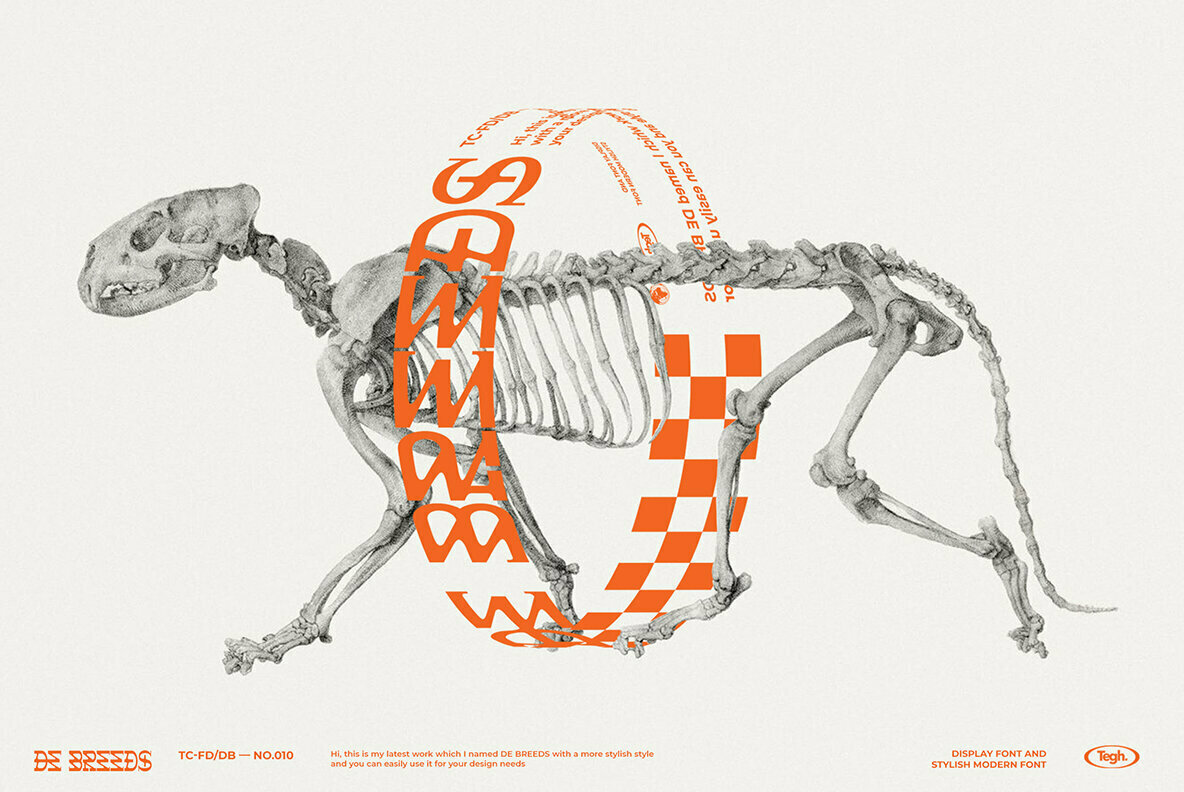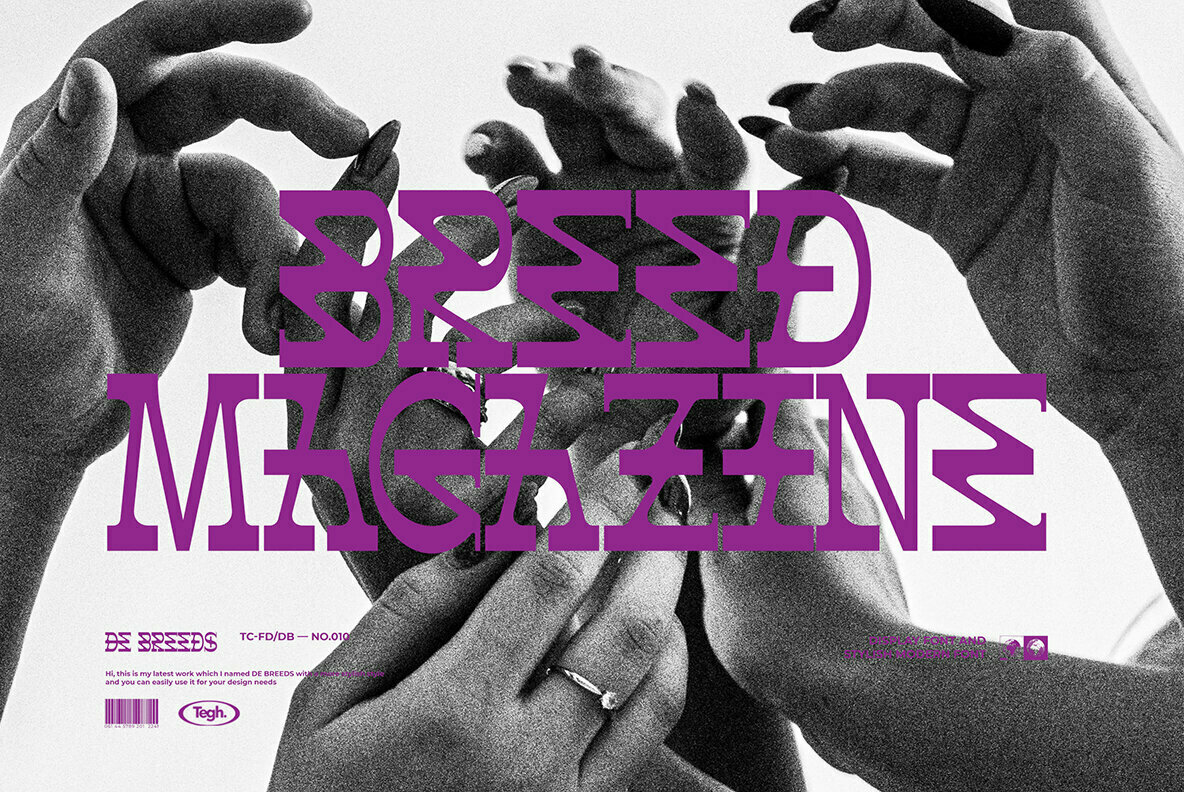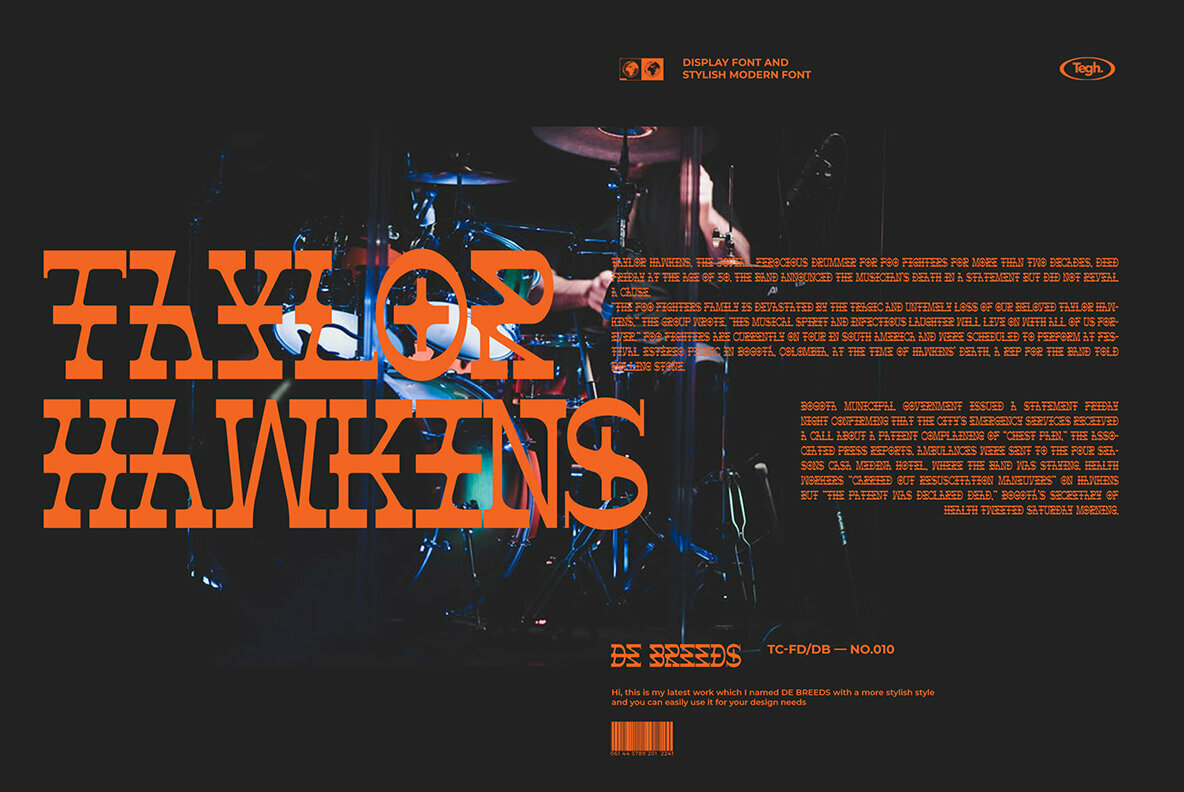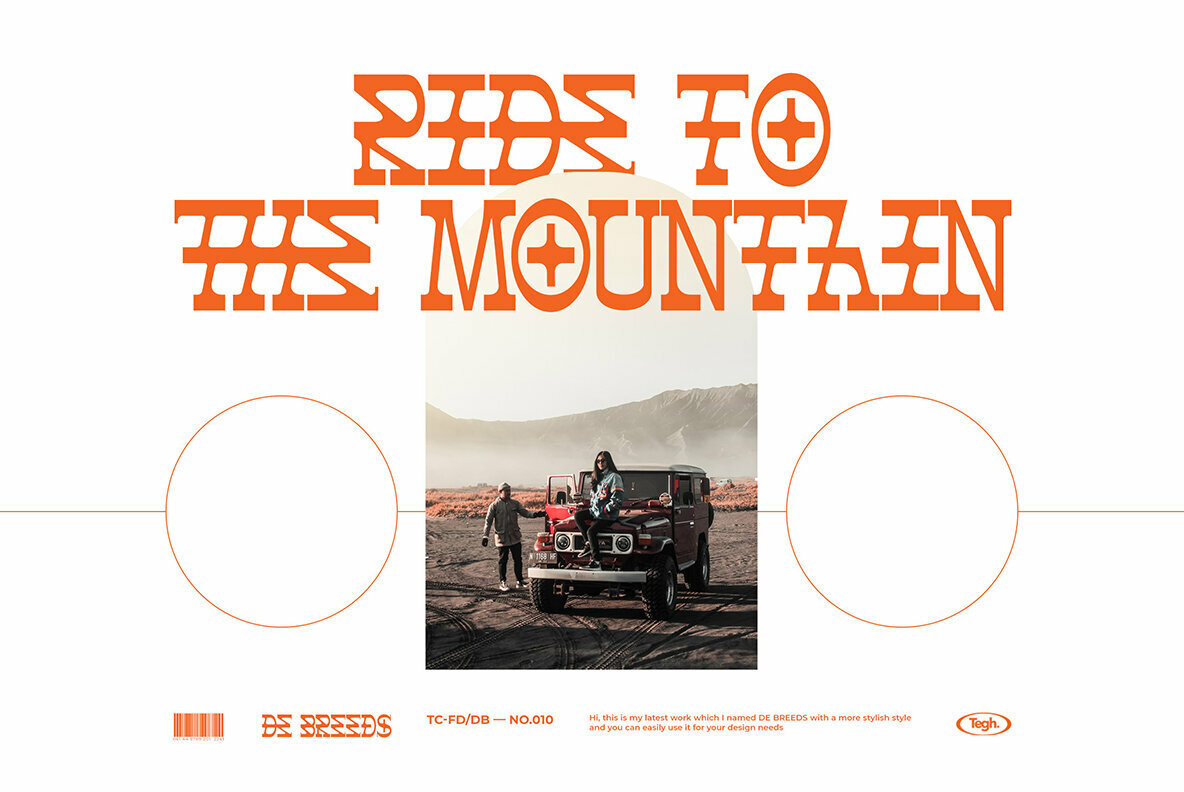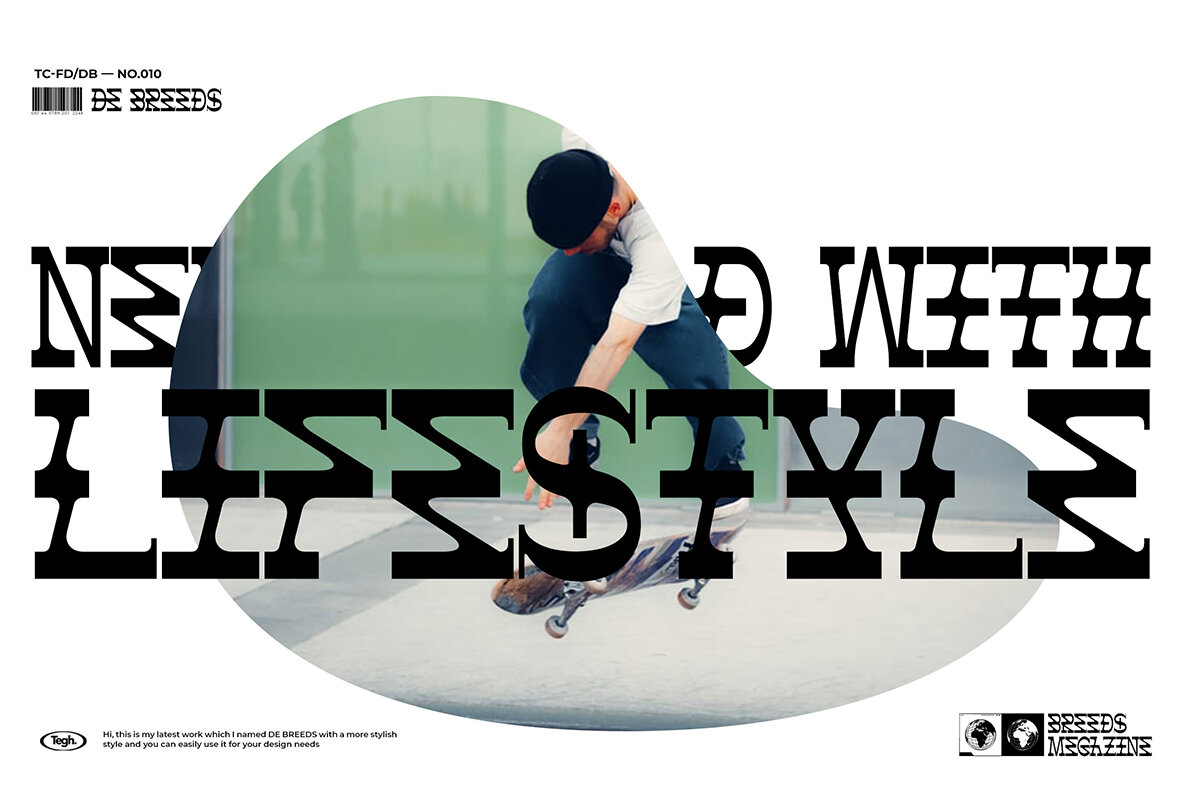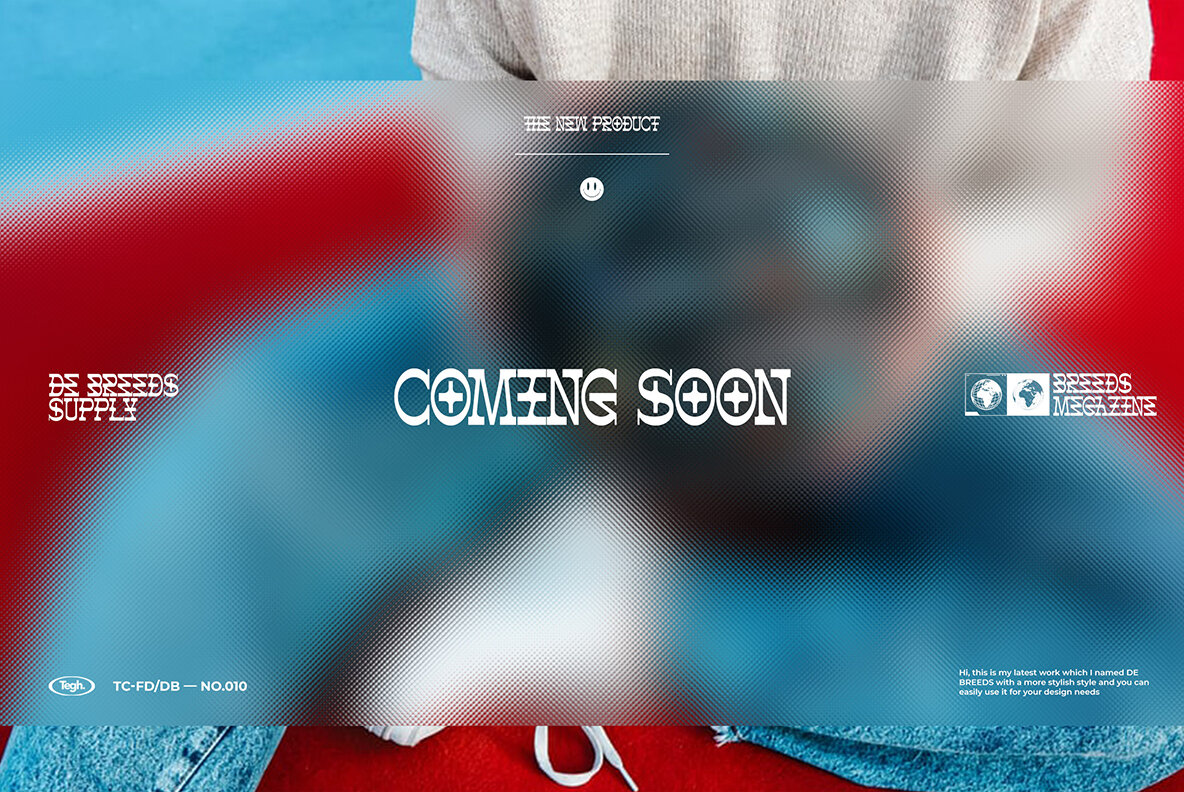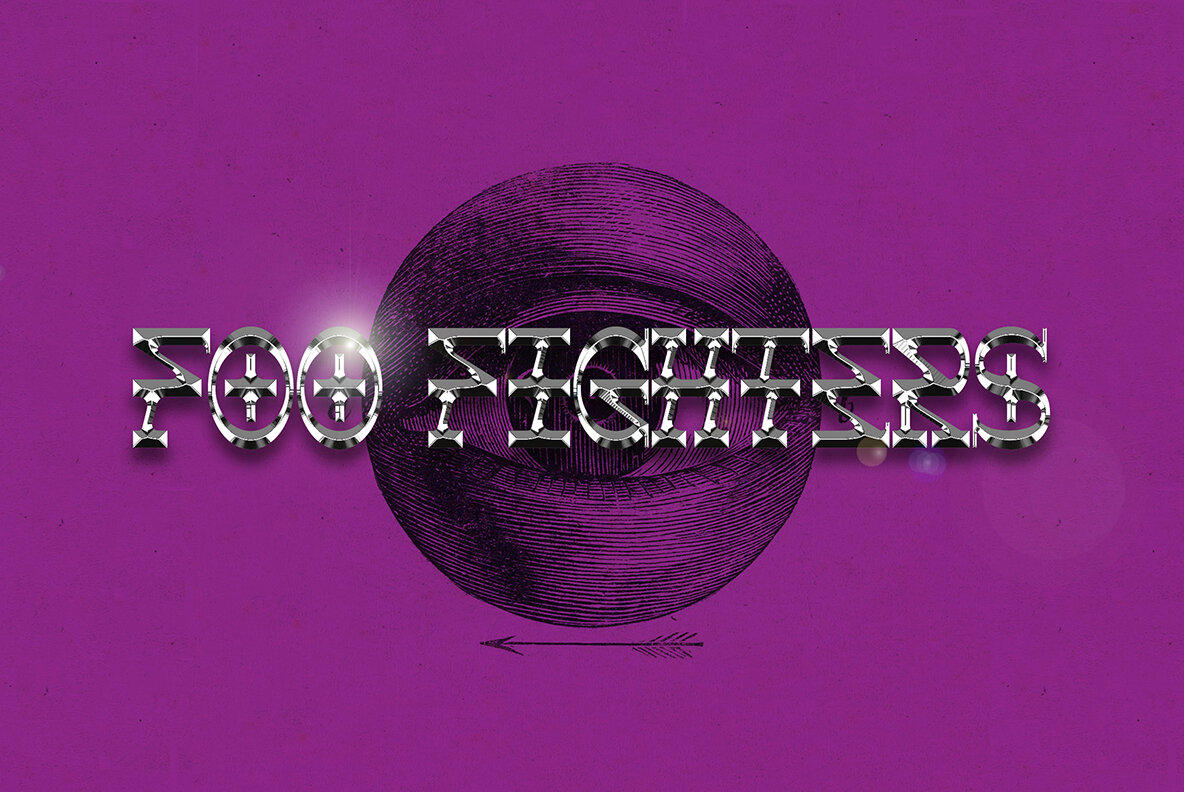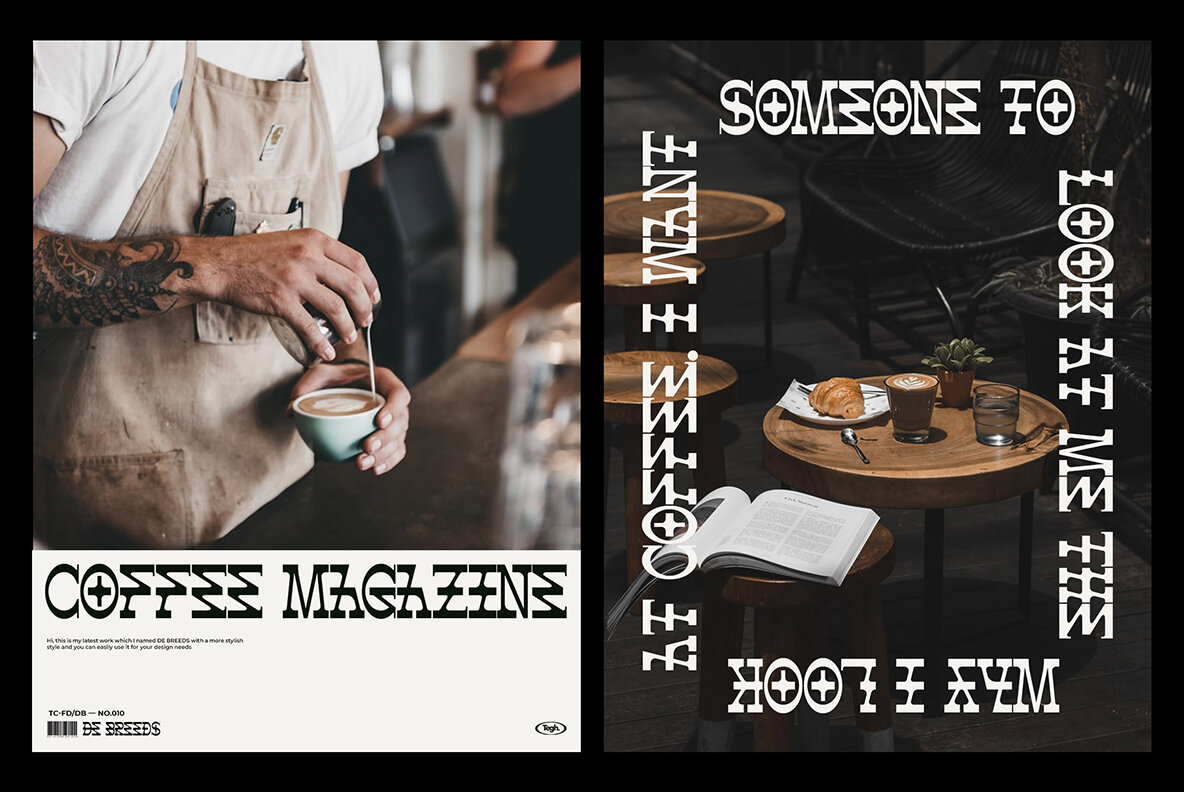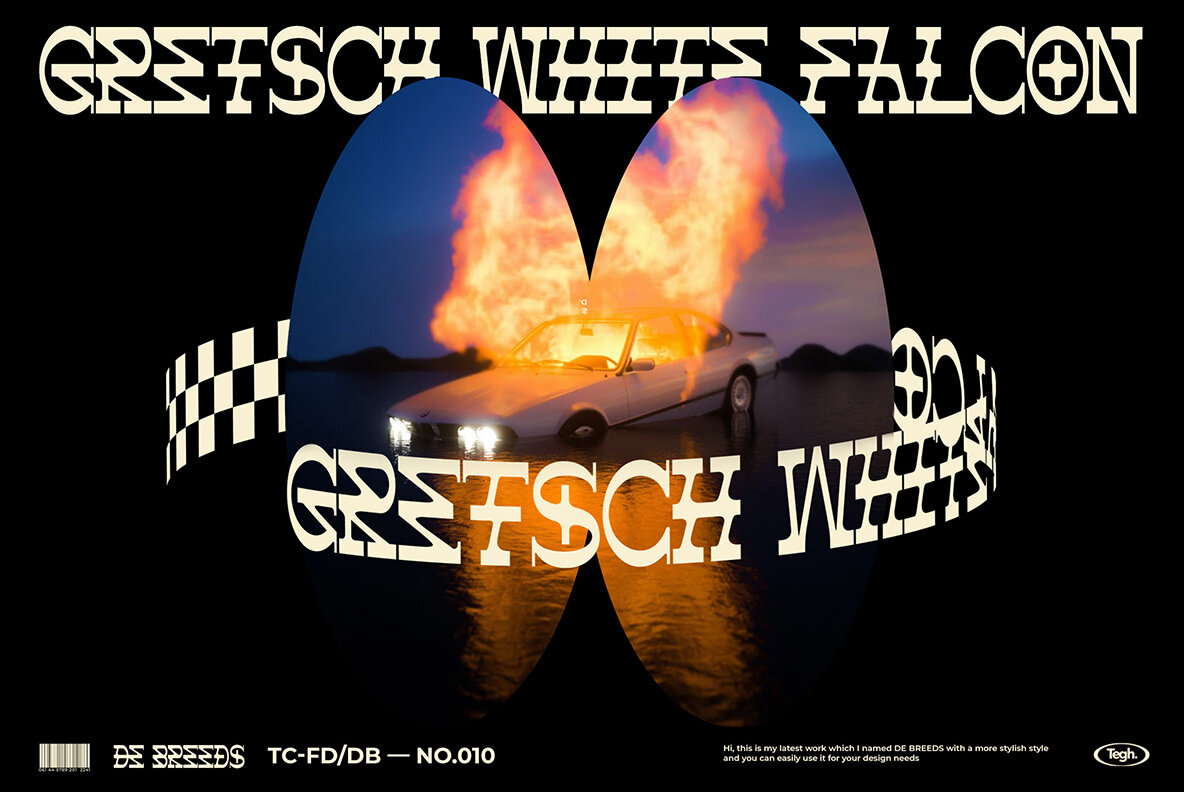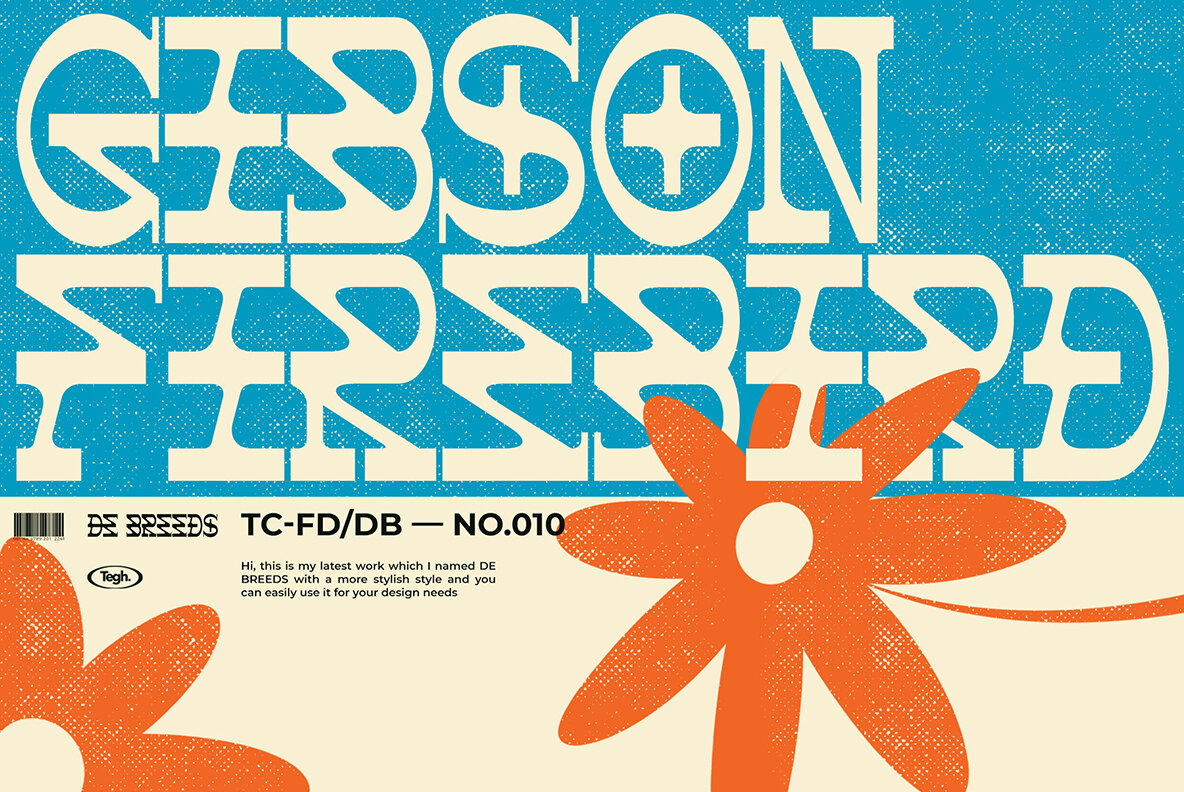
De Breeds is a font that will add some spice to your designs. It's Psychedelic and stylish, perfect for posters or stickers!
Tegh Co is a bold and experimental type foundry, pushing the boundaries of typography with high-impact display fonts. Their font collection blends retro influences, futuristic aesthetics, and unconventional letterforms, creating typefaces that demand attention. From playful and bubbly script fonts to heavy, in...